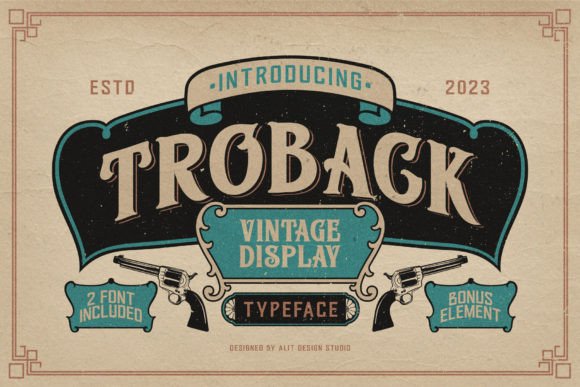
Welcome to the world of Troback, a display font that transports you to a bygone era of design brilliance. This meticulously crafted vintage display font pays homage to the golden age of signage, where every letter was a work of art.
Troback captures the essence of classic aesthetics with its intricate details and captivating curves. Its bold characters, adorned with delicate serifs, harken back to a time of refined craftsmanship, while its smooth curves evoke a sense of timeless elegance. Step into a realm of nostalgia with Troback, recalling memories of old cigar box labels, antique shop signs, and classic posters that once lined bustling city streets.
Designed with versatility in mind, Troback lends its charm to a wide spectrum of creative projects. It breathes life into branding that seeks a touch of vintage authenticity, perfectly harmonizing with designs that long to reconnect with the allure of a bygone era. Let Troback be your creative compass, leading you on a journey of visual storytelling through its enchanting typographic language.
Unleash the power of Troback in your next design endeavor. Embrace the charm of yesteryear, blend it with the innovation of today, and create something truly remarkable. Let Troback speak volumes with its timeless elegance, captivating audiences with every stroke and stirring emotions with its nuanced details.
Dive into the world of Troback and discover the endless creative possibilities that await. This display font is your gateway to a world of visual wonders, empowering you to craft designs that resonate with audiences and leave a lasting impression.